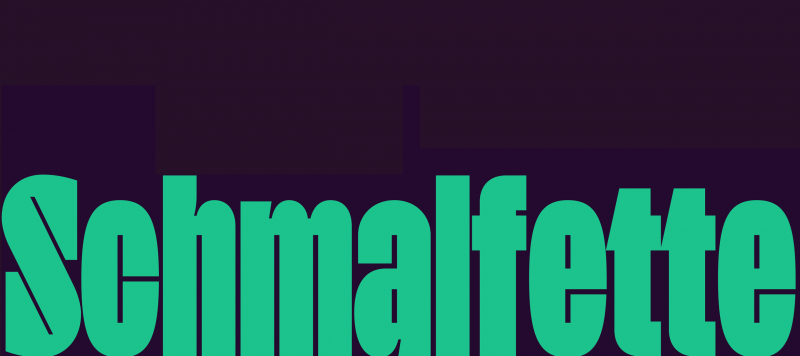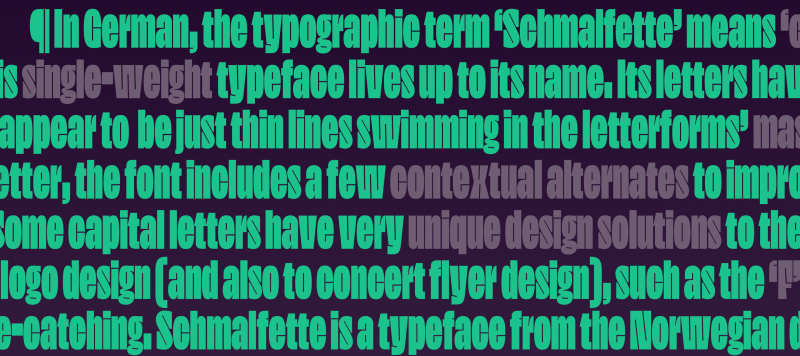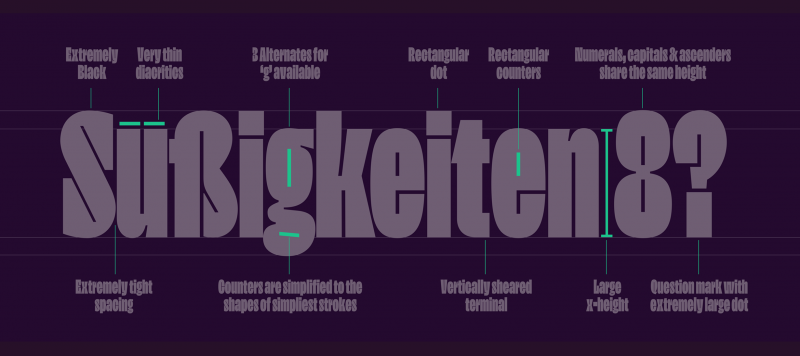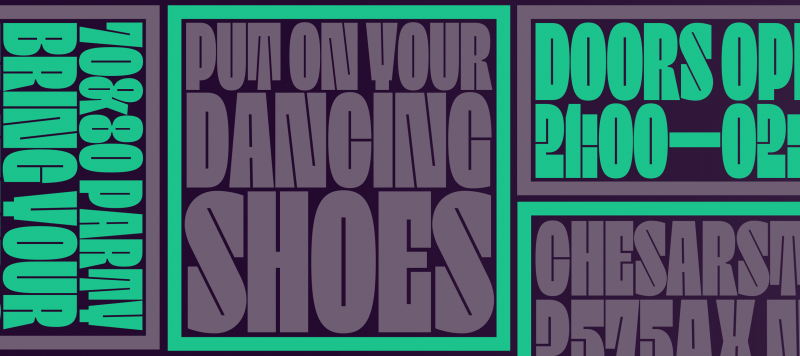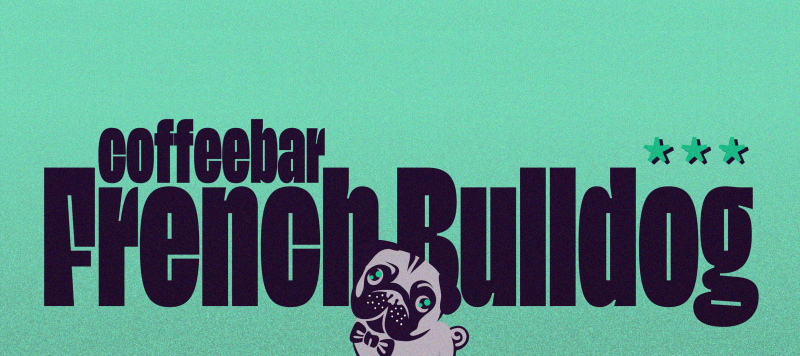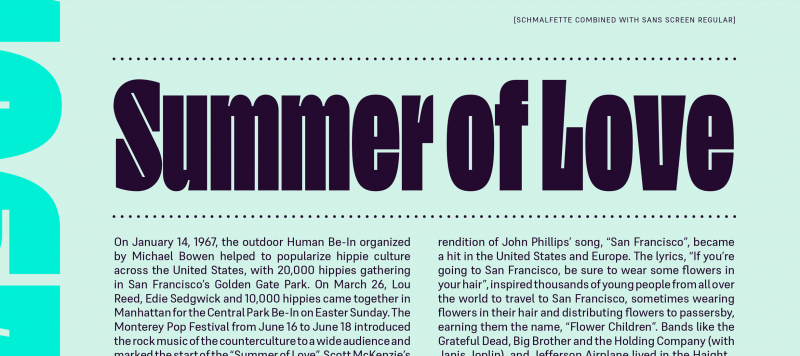
In German, the typographic term ‘Schmalfette’ means ‘condensed heavy’. This single-weight typeface lives up to its name. Its letters have been drawn so that they are both narrow and dark. The counterforms are particularly interesting, as they appear to be just thin lines swimming in the letterforms’ mass of darkness. Schmalfette is spaced very tightly; the amount of white space placed between each letter is optically about the same size as those line-thin counters. To make this work even better, the font includes a few contextual alternates to improve the fitting, such as a ‘j’ with a different tail and a few separate versions of the ‘g’, each of which has a subtly different treatment of the descending loop. Schmalfette’s x-height is tall, and its ascenders rise to the exact same height shared by the tops of capital letters and numerals. Some capital letters have very unique design solutions to them that lend them to logo design (and also to concert flyer design), such as the ‘F’, ‘Q’, and ’T’. The numerals are also all quite eye-catching. Schmalfette is a typeface from the Norwegian designer Frode Helland.